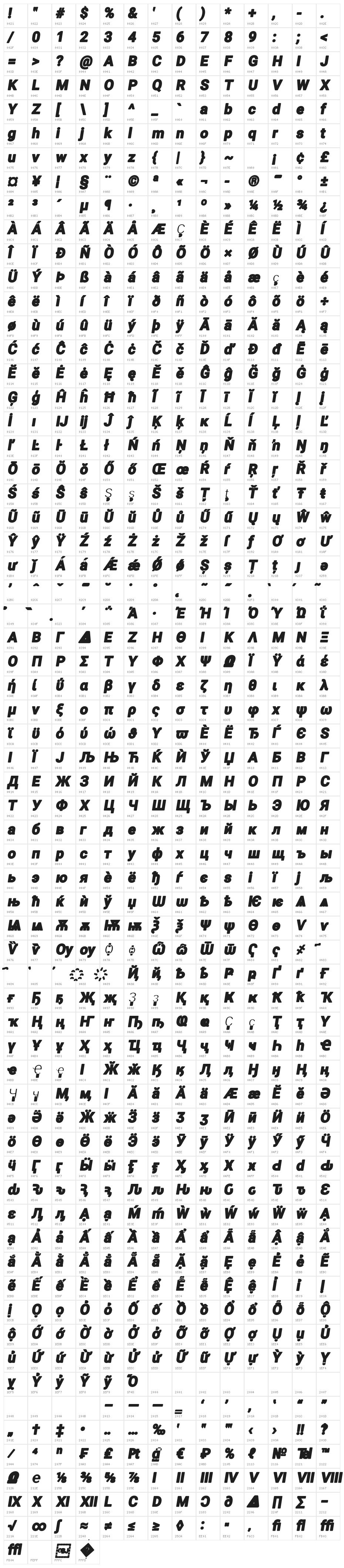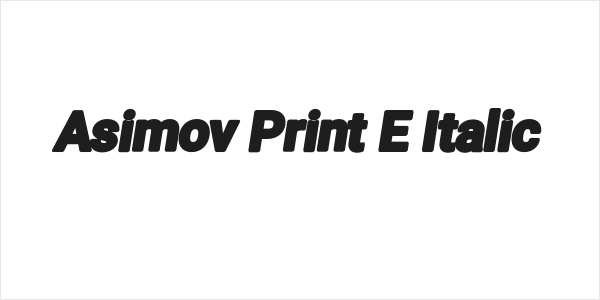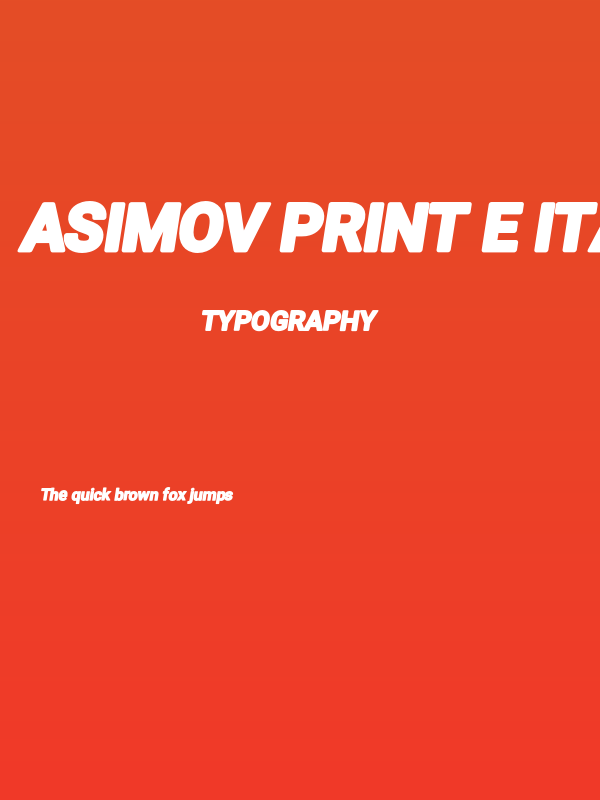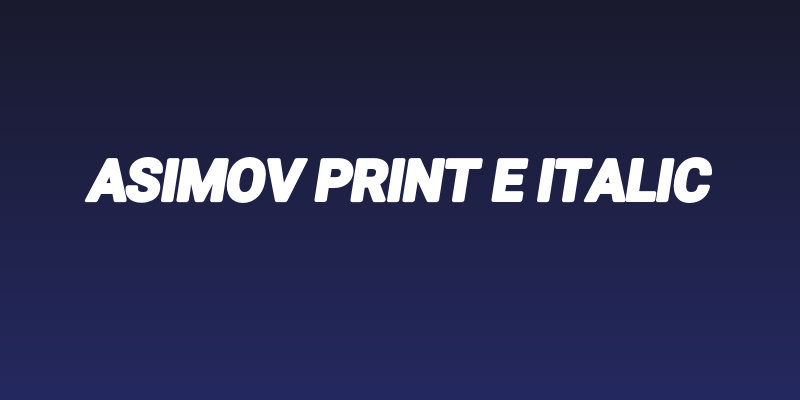
Asimov Print E Italic Font
Asimov Print E Italic Description
This font features bold, italicized characters with a strong presence, making it ideal for impactful designs. The letters are thick and rounded, providing a modern and dynamic look. The uppercase and lowercase letters maintain a consistent style, with smooth curves and a slight slant that enhances readability. The numerals are equally bold, ensuring they stand out in any context. Special characters are well-integrated, maintaining the overall aesthetic of the font. Its bold nature makes it suitable for attention-grabbing headlines and titles.
| Proposed Projects | Ideal for branding, advertising, posters, and headlines where a strong visual impact is needed. |